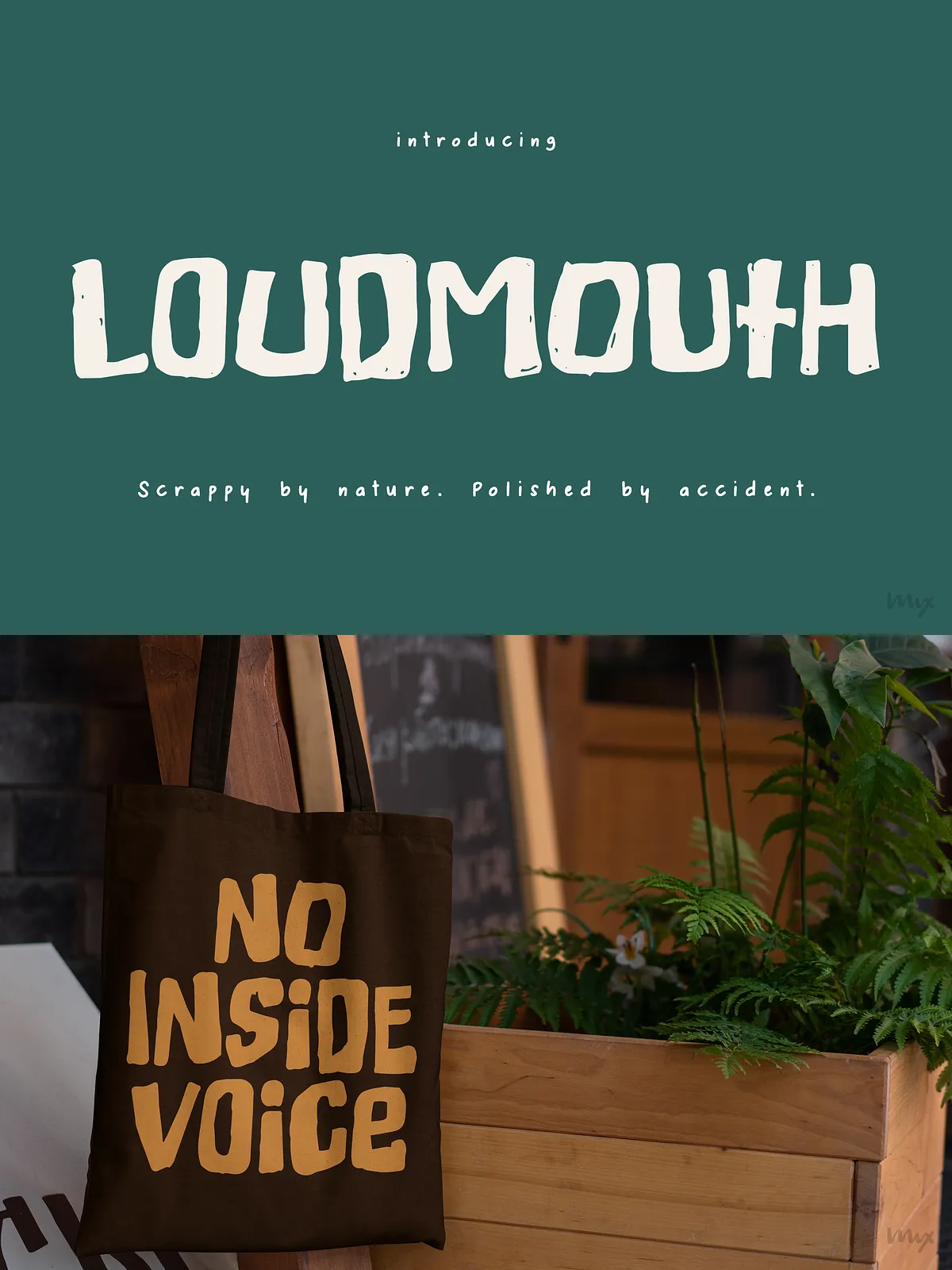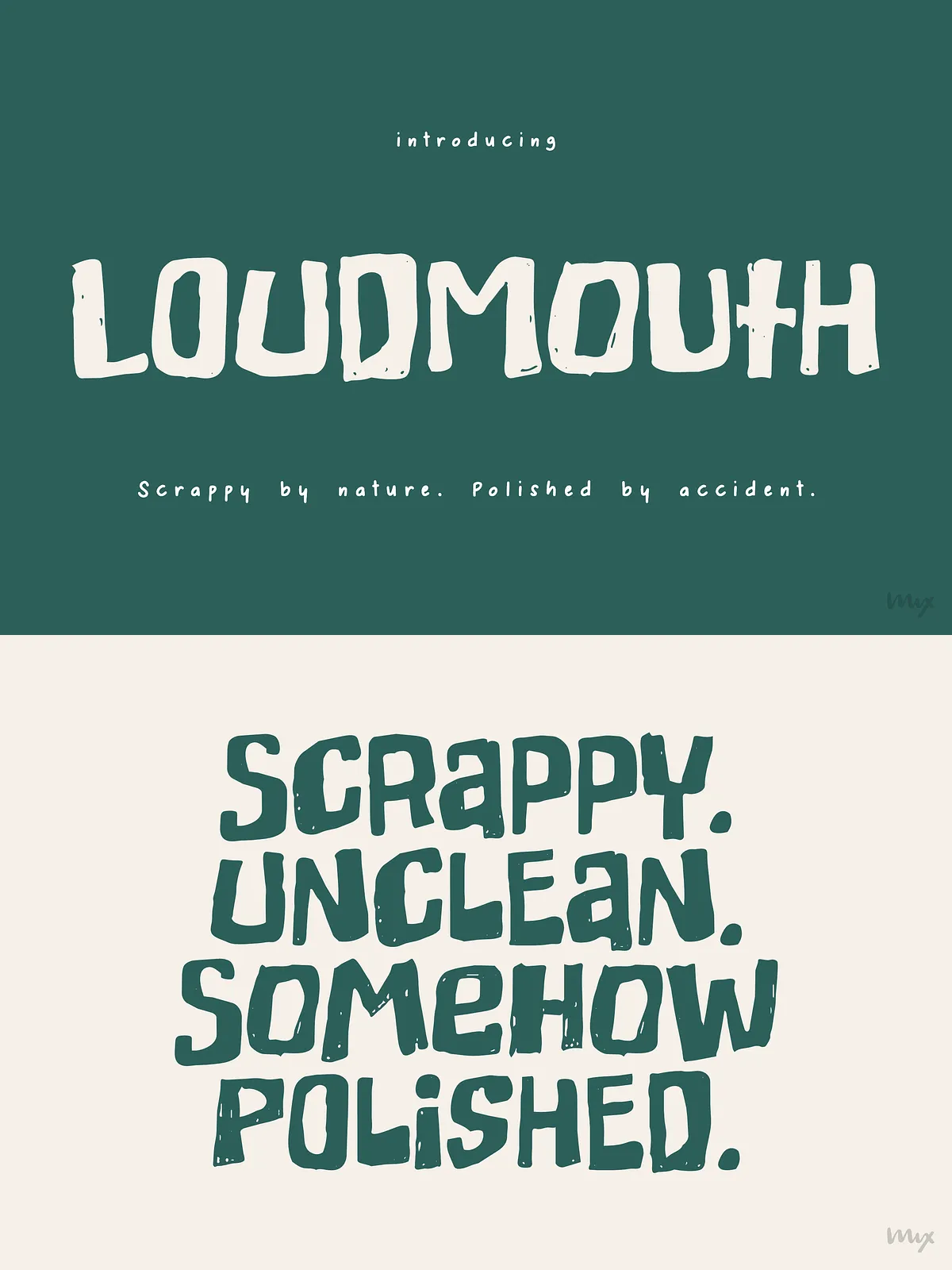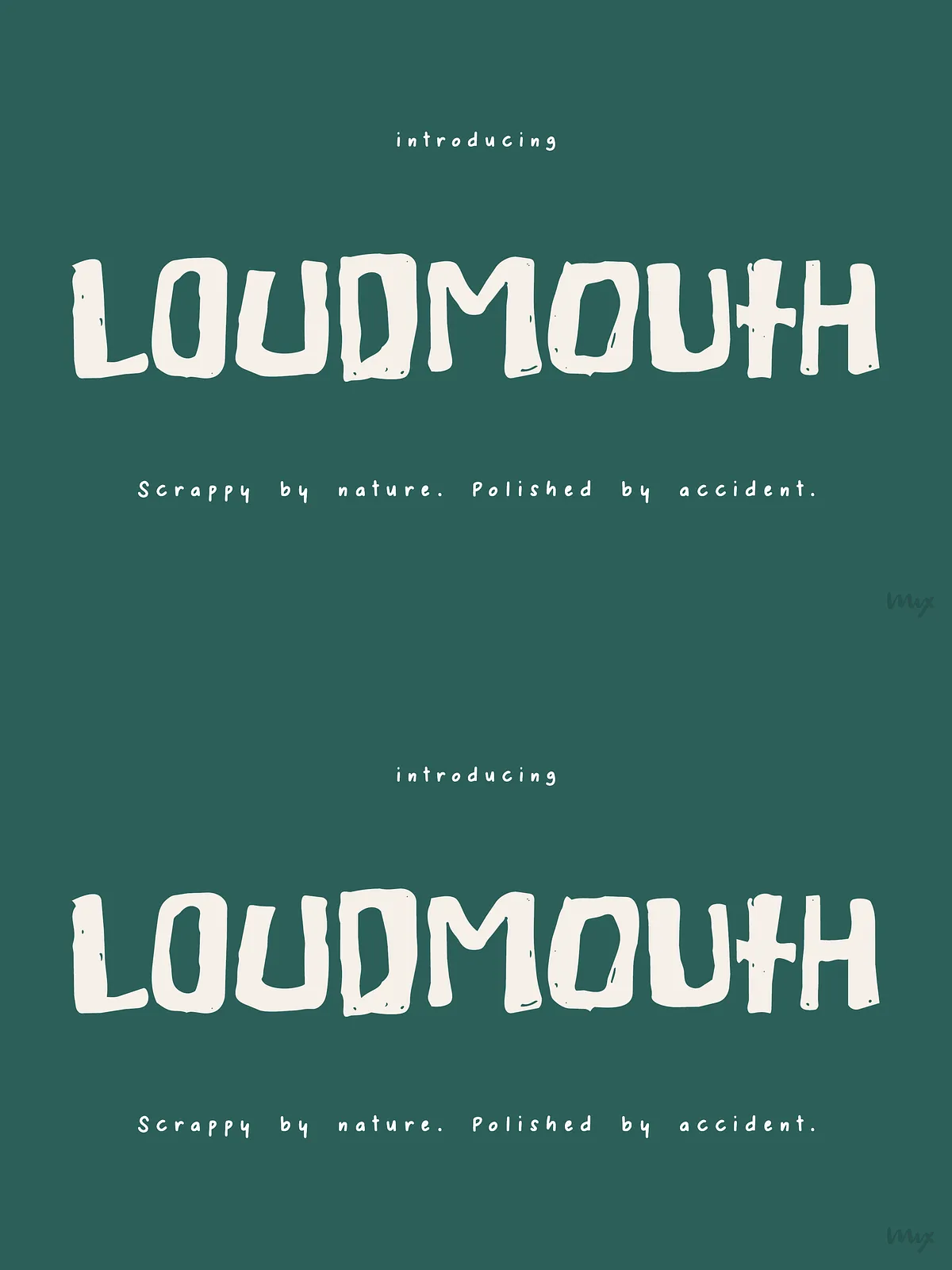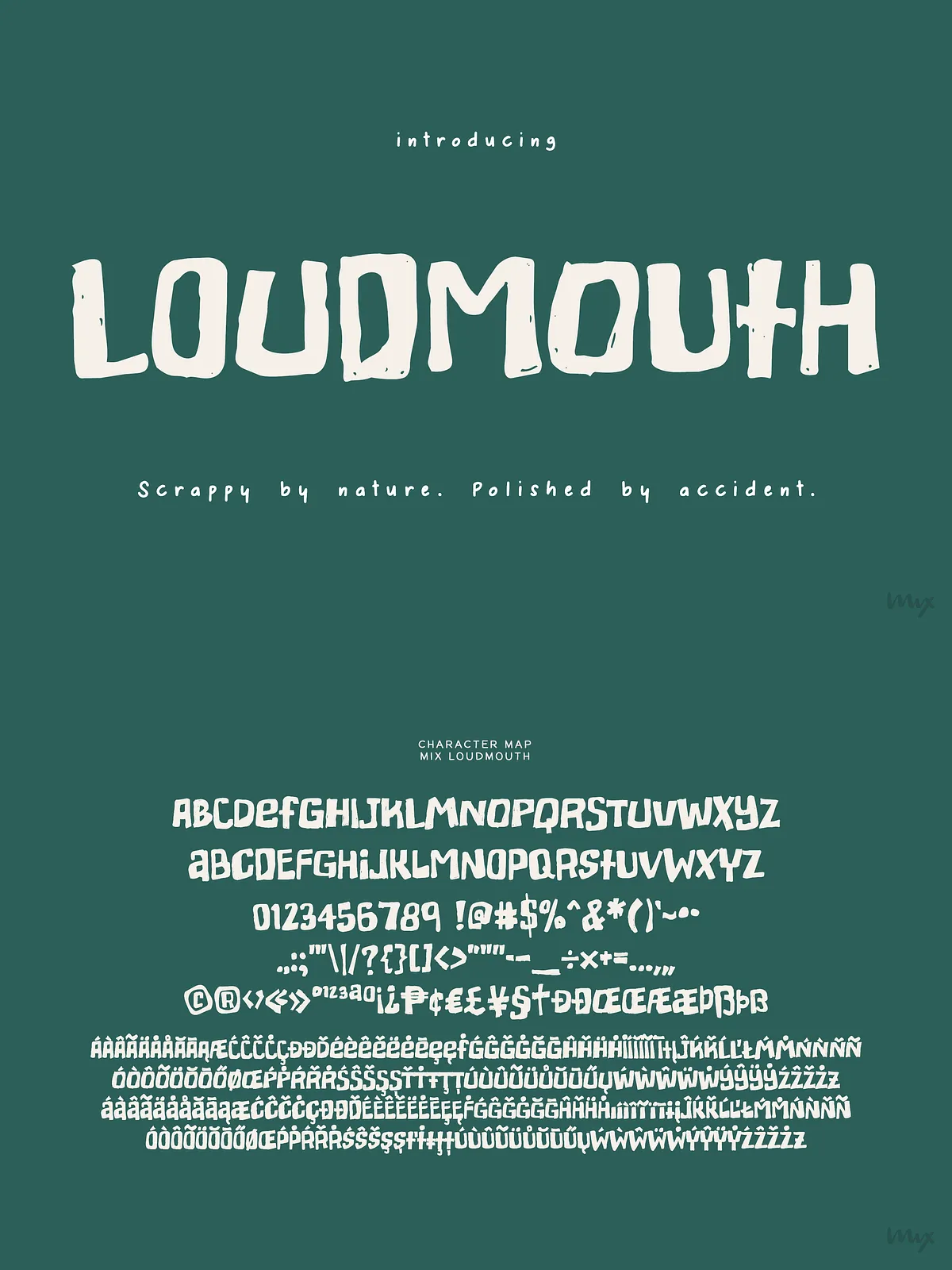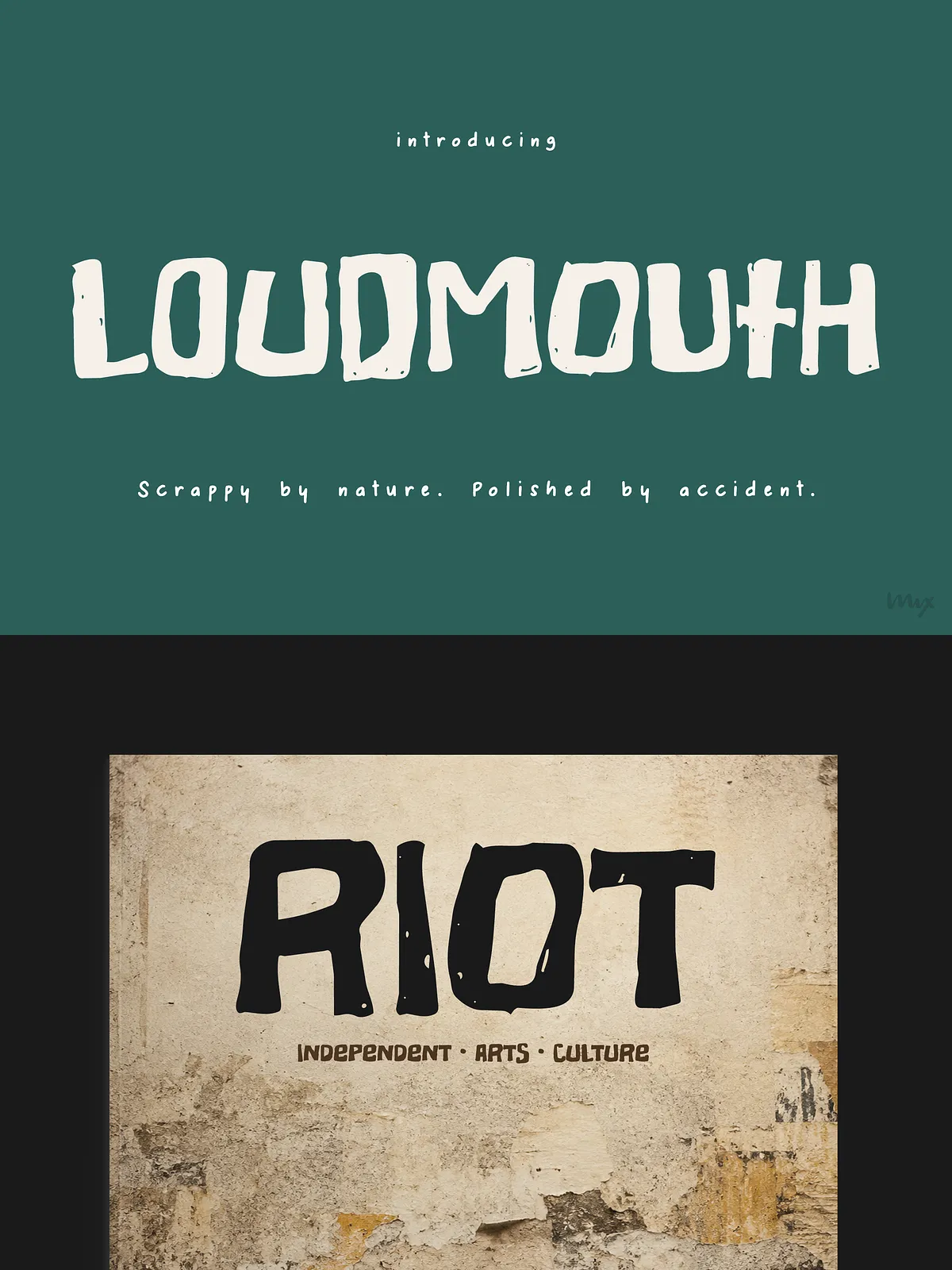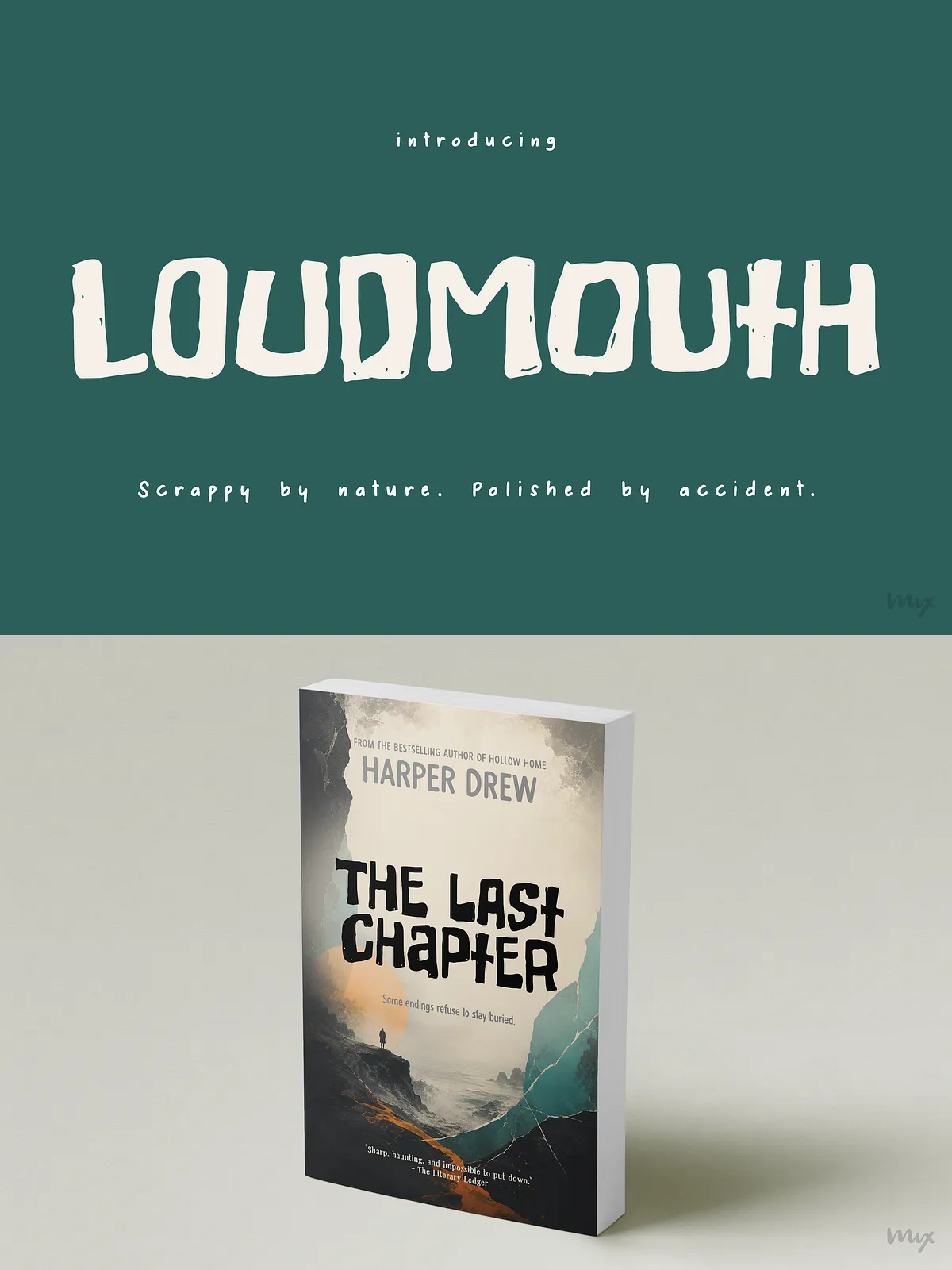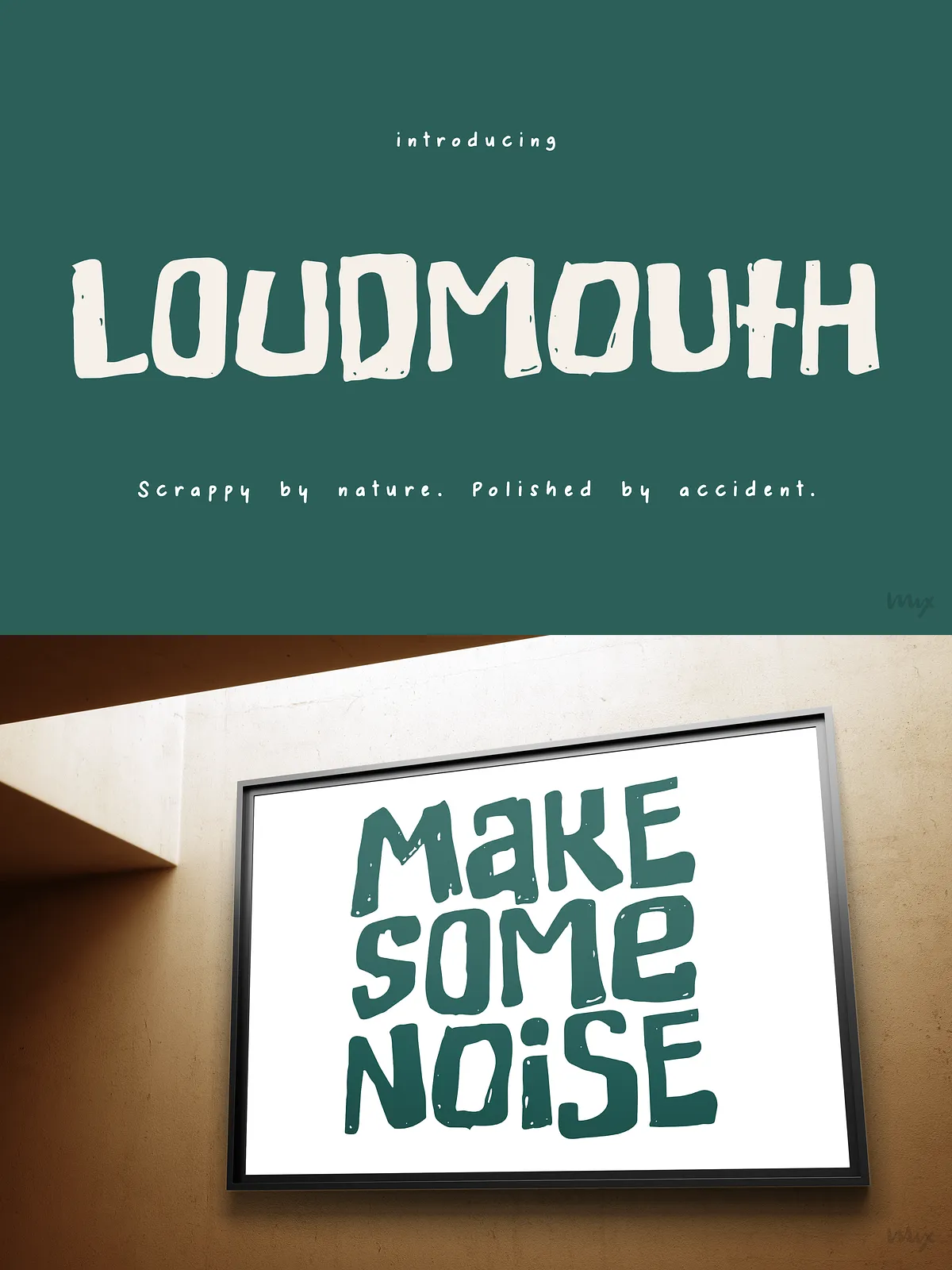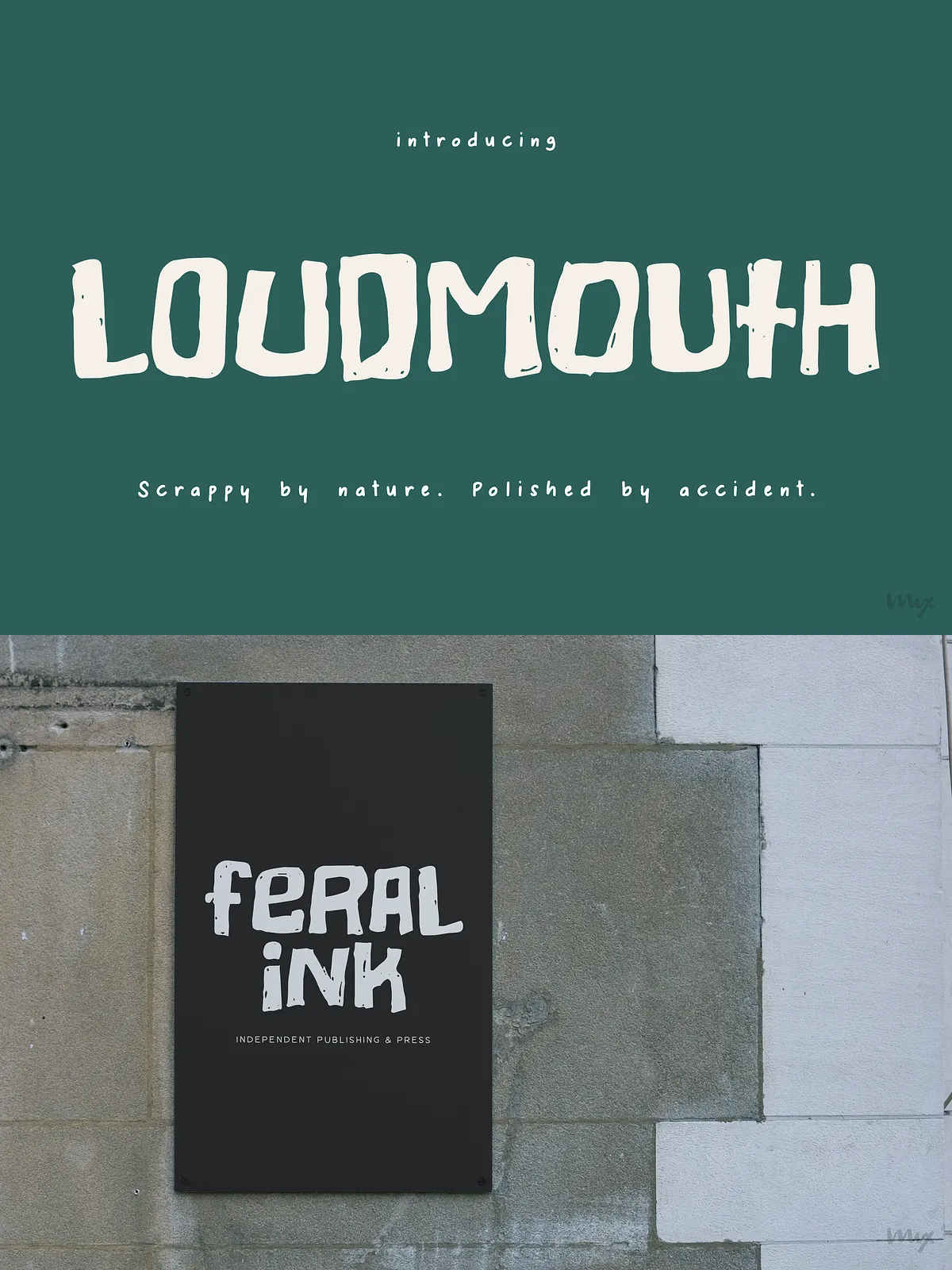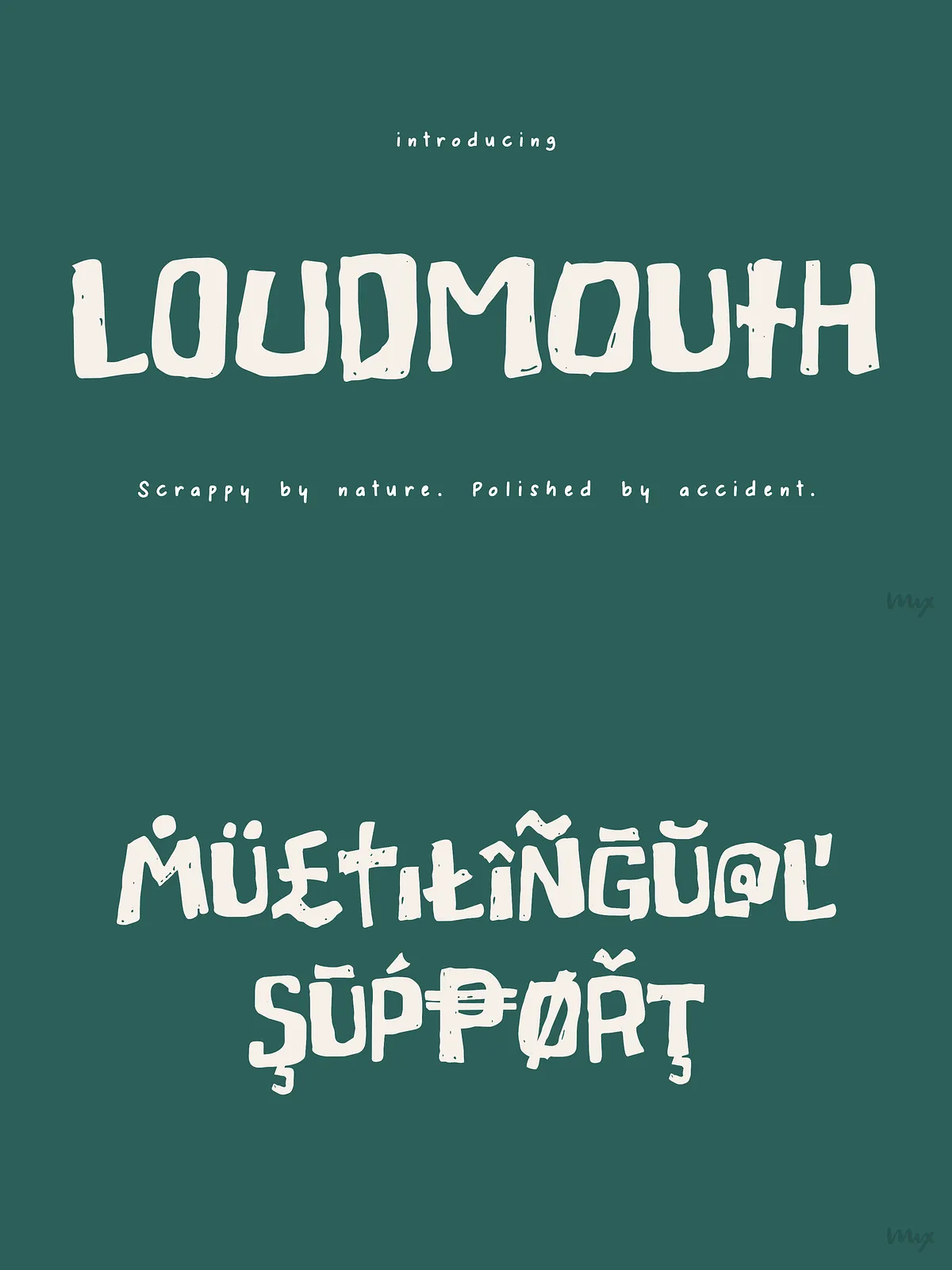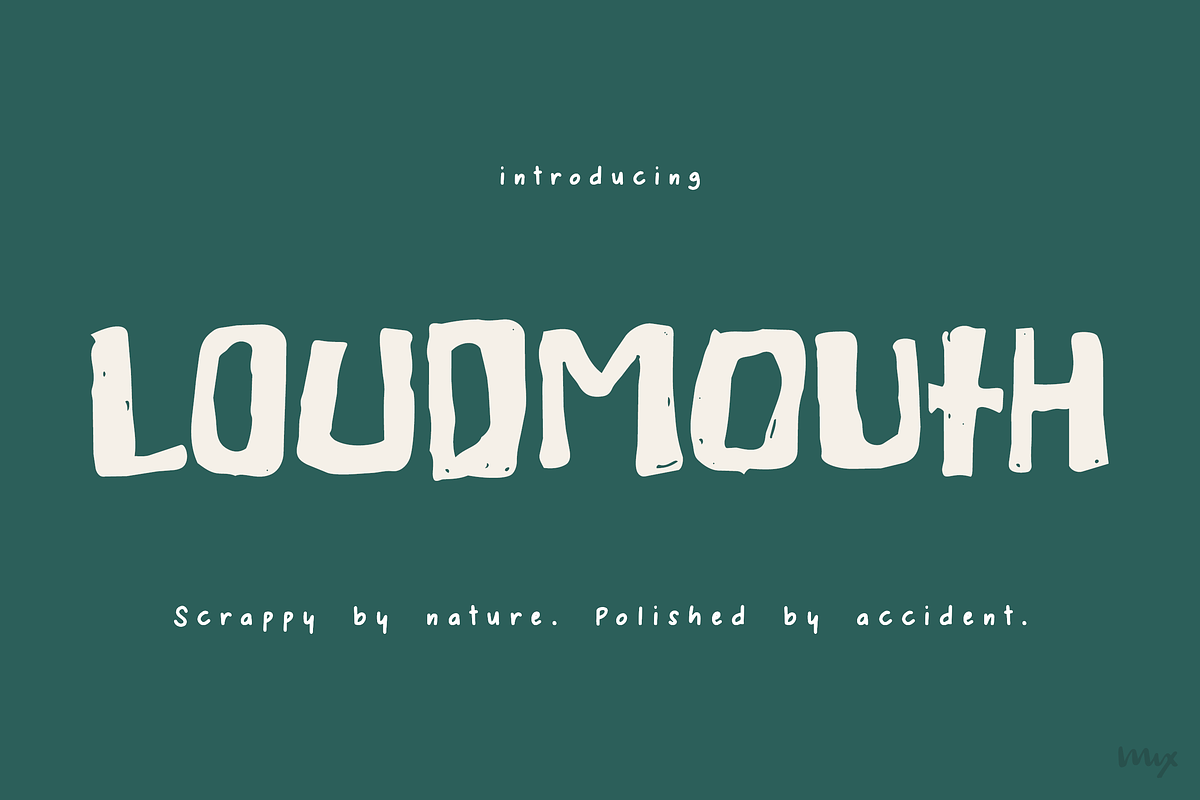
Loudmouth is scrappy and hand-drawn, rough around the edges. Set a word in it and every letter falls into the next like it was always meant to be there. Natural, unclean, somehow still polished.
Made for book covers, logotypes, zine titles, greeting cards, and poster headlines. Best at large sizes. Best when it only has a few words to work with.
Full character set with extended diacritics and currency symbols included.